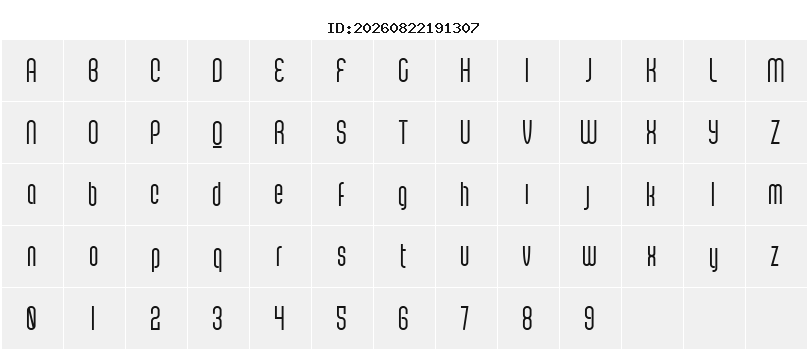
• Font Name: Scantype Bold PERSONAL USE
• Full Font Name: Scantype Bold PERSONAL USE
• Designer: MÂns Greb‰ck
About Scantype Bold PERSONAL USE.ttf
Scantype Bold PERSONAL USE.ttf is a modern, elegant sans-serif font designed for ultimate readability and visual harmony. Perfect for branding, headlines, web design, and print materials.